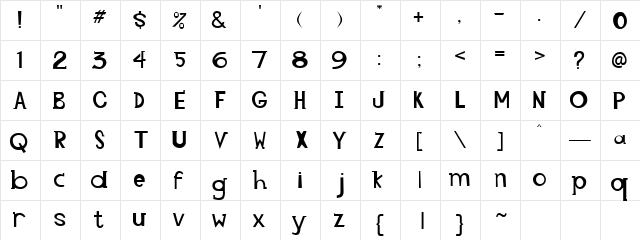
special product Regular
Design Context for special product Typeface
special product is a composed and adaptable typeface that performs quietly and consistently across a wide range of design contexts.